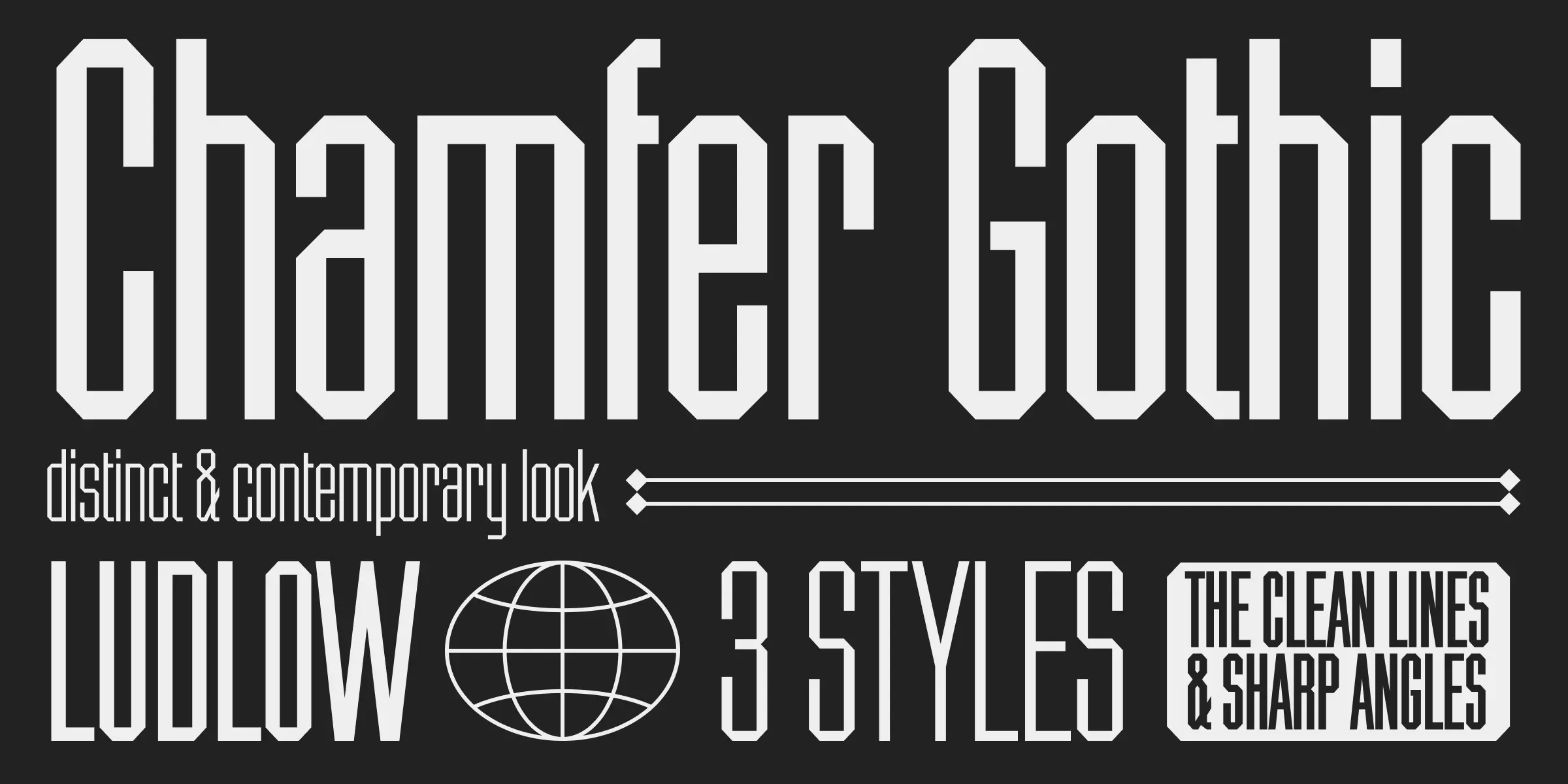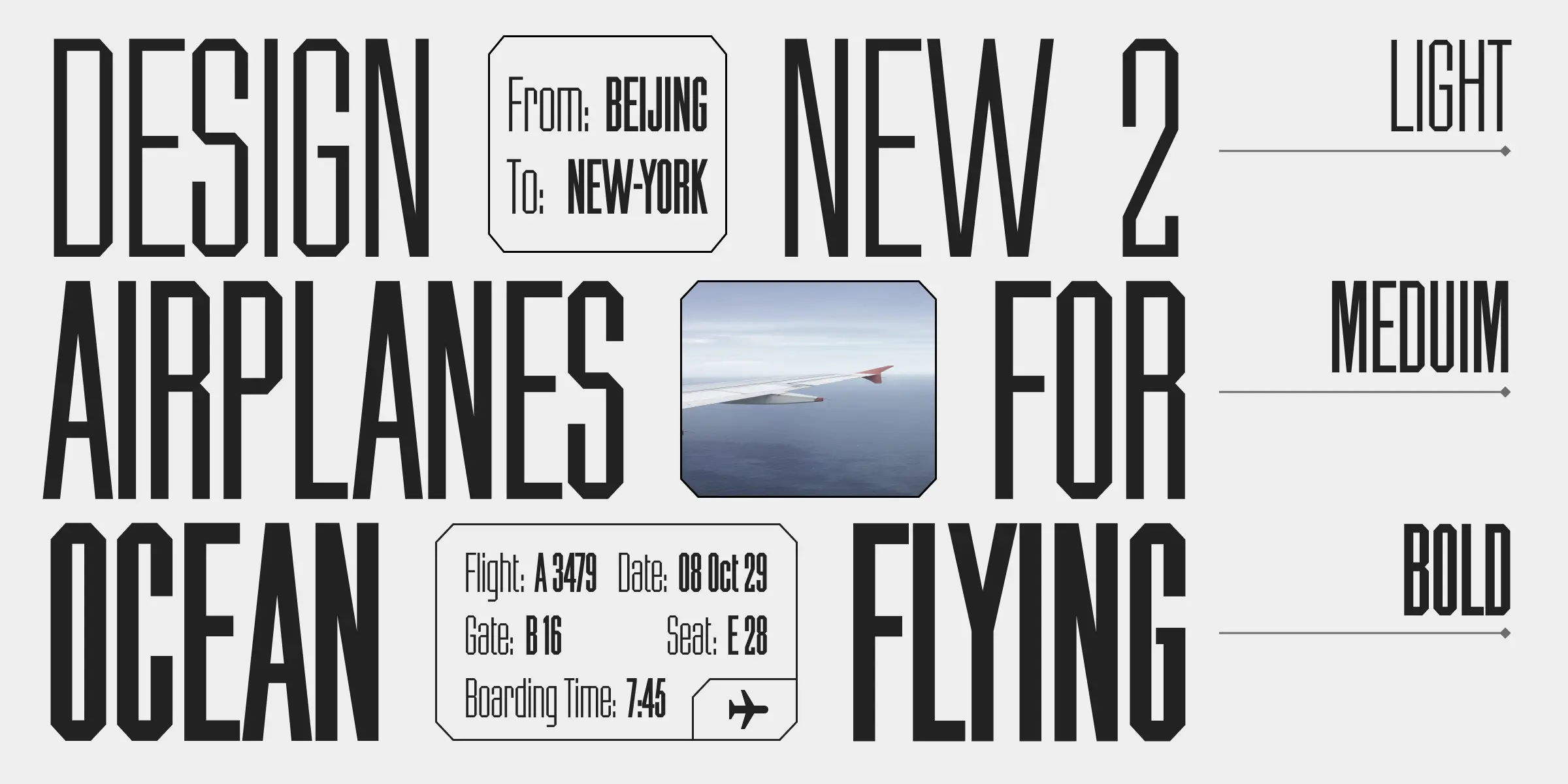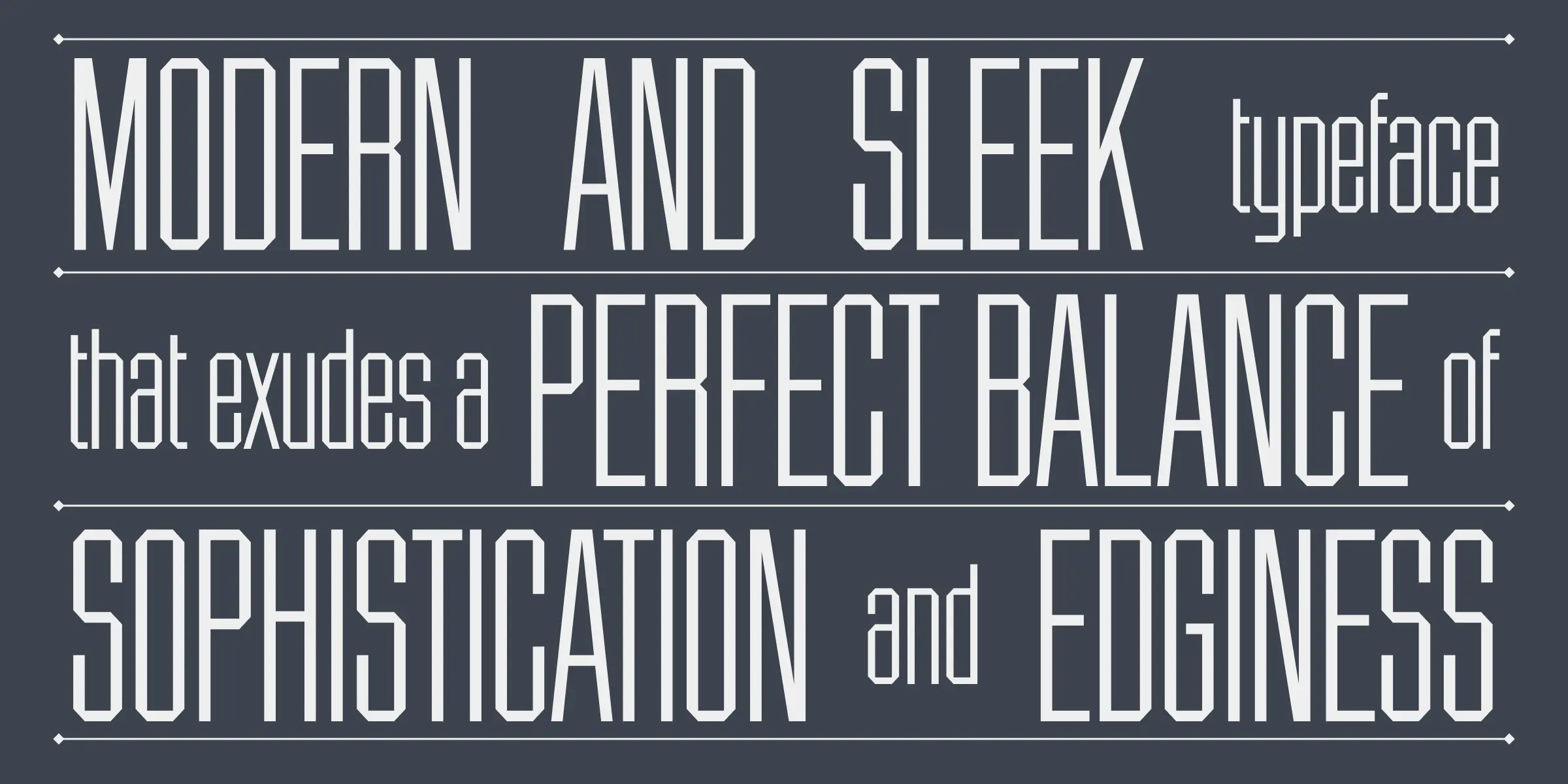
Chamfer Gothic Font Family
Chamfer Gothic is a condensed, all-caps sans serif typeface released by the Ludlow Typograph Company in the early 20th century. Characterized by its chamfered stroke endings and narrow proportions, it was designed for headlines and tight typographic settings, particularly in advertising and newspaper use. Its bold, industrial feel reflects the visual language of the period, offering clarity and economy of space in display typography.
Part of the Ludlow Collection